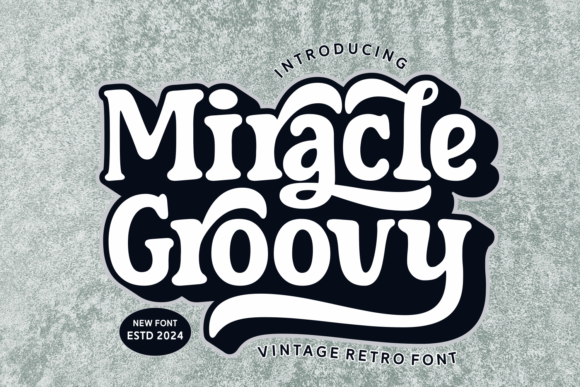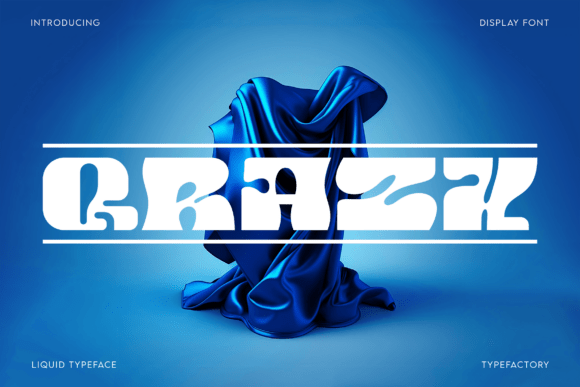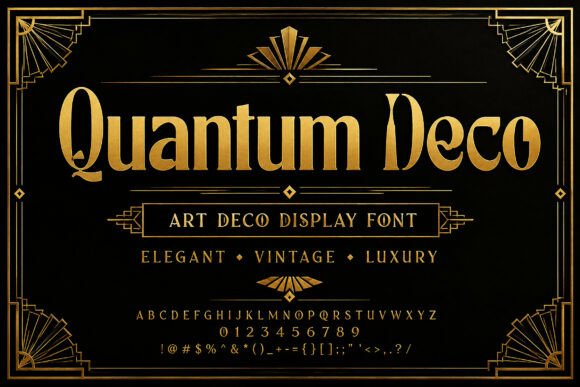
13 Nostalgic Vintage Display Fonts for Branding (2026)
Vintage display fonts for branding let a new brand borrow the confidence of a past era. A whiff of Art Deco, a 70s curve or a diner-sign glow tells customers a brand has character and roots, even on day one. The best vintage display fonts for branding nail one specific decade and wear it boldly at display size.
This guide sorts 13 fonts by era and style, Art Deco and Y2K, luxury retro serifs, diner-style display and vintage duos, so you can match the decade to your brand.
How to use vintage display fonts for branding
Vintage works at display size and in small doses. A few rules keep vintage display fonts for branding looking stylish, not dated.
• Pick one decade: Deco, 70s or Y2K, commit to a single era and stay there.
• Display only: use these for the logo and headlines, not body text.
• Modern partner: pair the vintage face with a clean sans for the practical text.
• Use the detail: ligatures and alternates are where the era lives, so use them.
Art Deco and Y2K vintage display fonts
Start with the boldest eras. These vintage display fonts for branding channel Deco glamour and Y2K futurism for a striking wordmark.
Quantum Deco
Quantum Deco is a sophisticated Art Deco display font inspired by the 1920s and 30s. Among vintage display fonts for branding it brings Gatsby-era glamour to a wordmark, ideal for a bar, a beauty brand or an event identity. Use it large with the geometric detailing on show, paired with a clean sans. The Deco forms read striking at size. For a brand that wants 1920s glamour, Quantum Deco is a characterful display font worth trying.
Qrazx
Qrazx is a futuristic Y2K display font with liquid curves and experimental forms. Among vintage display fonts for branding it channels early-2000s chrome-and-bubble nostalgia, perfect for a youth, music or fashion brand riding the Y2K revival. Use it large for the wordmark and a clean sans for detail. The liquid forms read bold at size. For a brand that wants a Y2K, retro-future logo, Qrazx is a distinctive display font worth a look.
Miracle Groovy
Miracle Groovy is a 70s-inspired vintage font full of retro warmth. Among vintage display fonts for branding it nails that groovy, sun-soaked decade, suiting a cafe, a wellness brand or a music label. Use it large for the wordmark and a clean sans for support. The rounded retro forms read friendly and warm. For a brand that wants a clearly 70s, groovy logo, Miracle Groovy is a fun display font worth trying.
Luxury vintage display serifs for branding
For an upmarket retro feel, these luxury vintage display fonts for branding pair old-world opulence with display-grade drama.
Devon
Devon is an exquisite display face built on classic opulence. Among vintage display fonts for branding it channels a grand, old-world luxury, suiting a heritage hotel, a spirits brand or a premium label. Use it large for the wordmark where the opulent detailing shows, with a clean sans for support. The rich forms read expensive at size. For a brand that wants a grand, vintage-luxury logo, Devon is a striking display font worth a close look.
The Fauden
The Fauden is a high-end display face with a luxurious, vintage-leaning character. Among luxury vintage display fonts for branding it brings refined drama to a wordmark, suiting premium fashion and beauty brands with a heritage story. Use it large where the detailing shows, with a clean sans for detail. The refined forms read expensive at size. For a brand that wants a luxury vintage logo, The Fauden is a graceful display font worth a look.
Welp Clair
Welp Clair is an exquisite display face built on timeless sophistication. Among vintage display fonts for branding it pairs a classic, slightly retro elegance with display drama, good for a premium heritage brand. Use it large for the wordmark and a clean sans for support. The elegant forms read refined at size. For a brand that wants a timeless, vintage-elegant logo, Welp Clair is a polished display font worth trying.
Blackdove
Blackdove is an elegant display face with a dynamic, powerful aesthetic. Among luxury vintage display fonts for branding it brings a dramatic, fashion-led character to a wordmark with a retro undertone. Use it large for the name and a clean sans for detail. The dramatic forms read striking at size. For a brand that wants a bold, elegant vintage display logo, Blackdove is a characterful font worth a look.